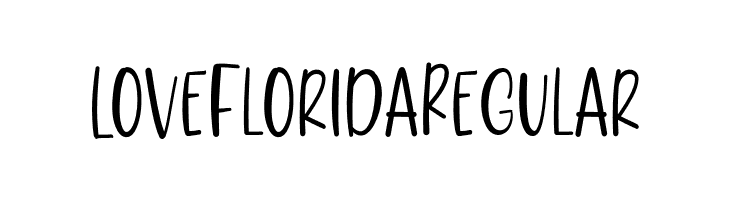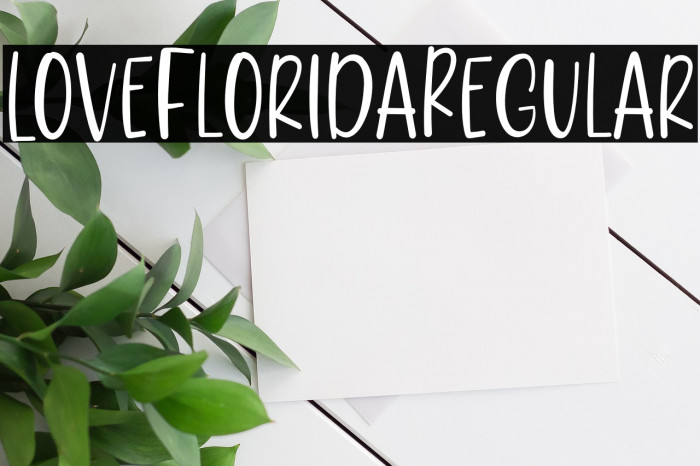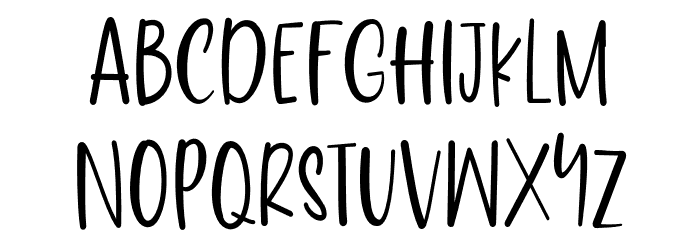
LoveFloridaRegular Font
LoveFloridaRegular Description
This font features a playful and casual handwritten style, characterized by its smooth, flowing lines and slightly irregular shapes. The uppercase letters are bold and prominent, while the lowercase letters maintain a consistent height, adding to the font's readability. The strokes are moderately thick, providing a balanced contrast that enhances its legibility. The overall appearance is friendly and approachable, making it suitable for a variety of informal and creative applications. The spacing between characters is normal, ensuring clarity and ease of reading.
A playful, handwritten font with smooth, flowing lines and moderate contrast from Cartoon fonts.
- Proposed Projects: Ideal for greeting cards, invitations, personal branding, and social media graphics.
- Overall Style: Casual
- Use Case: Logos, Headlines, Informal Text